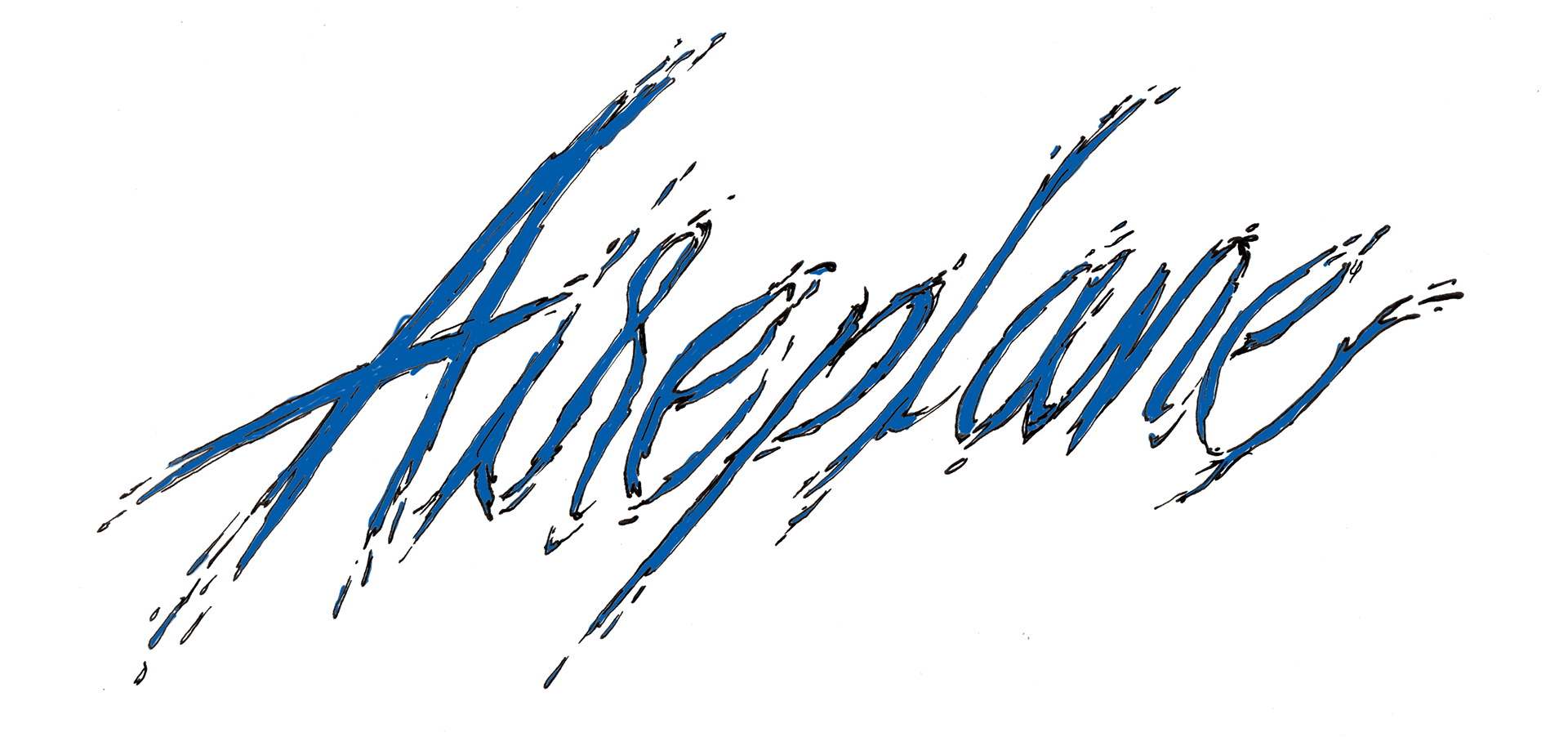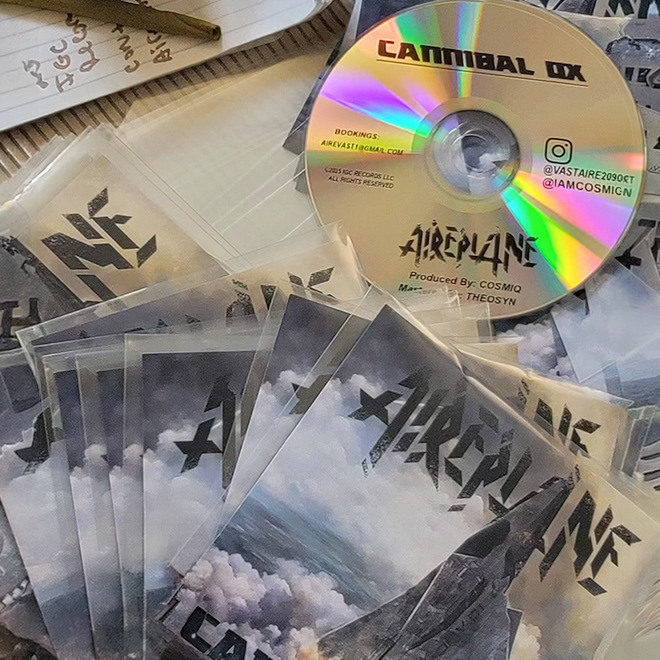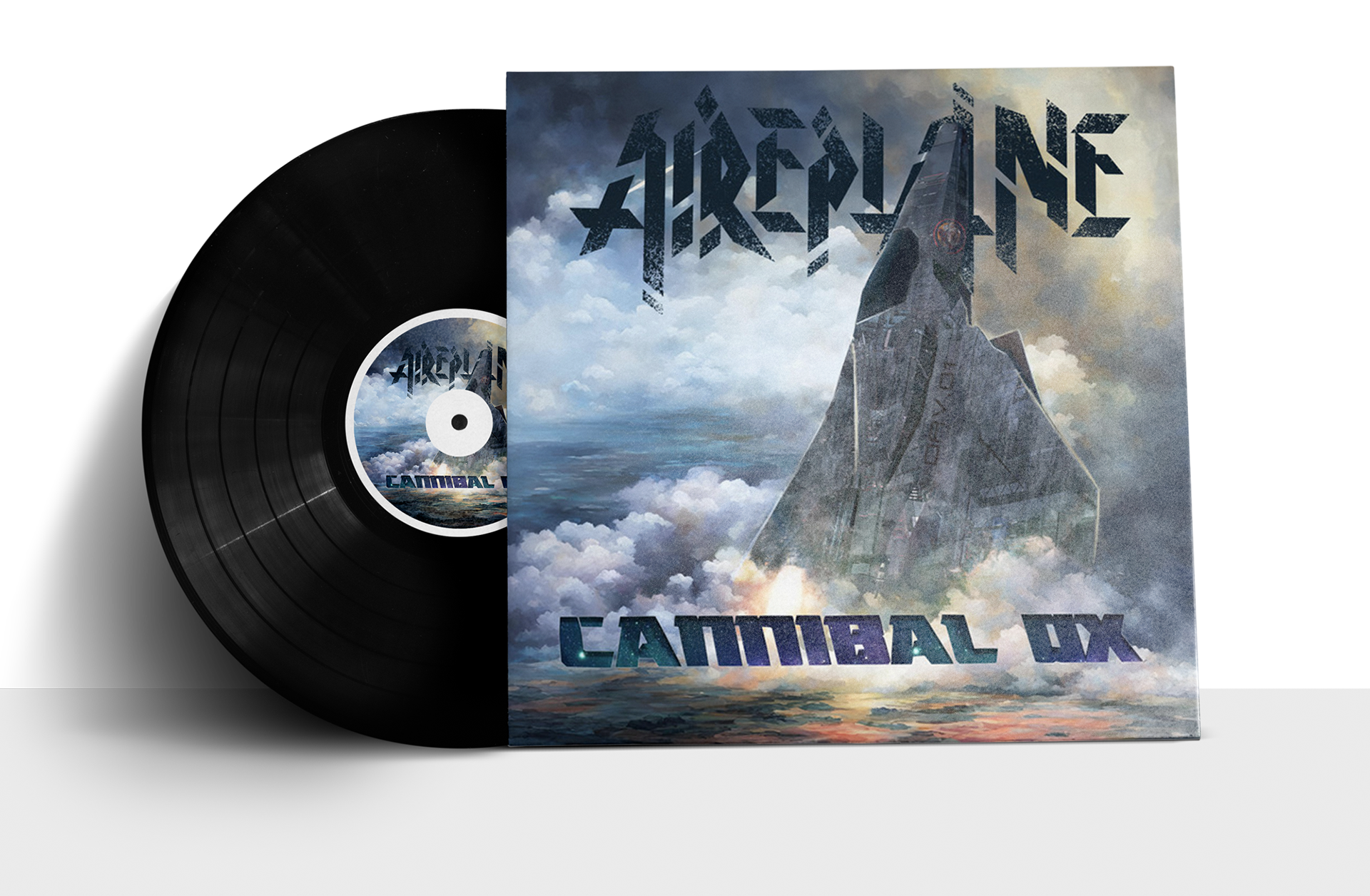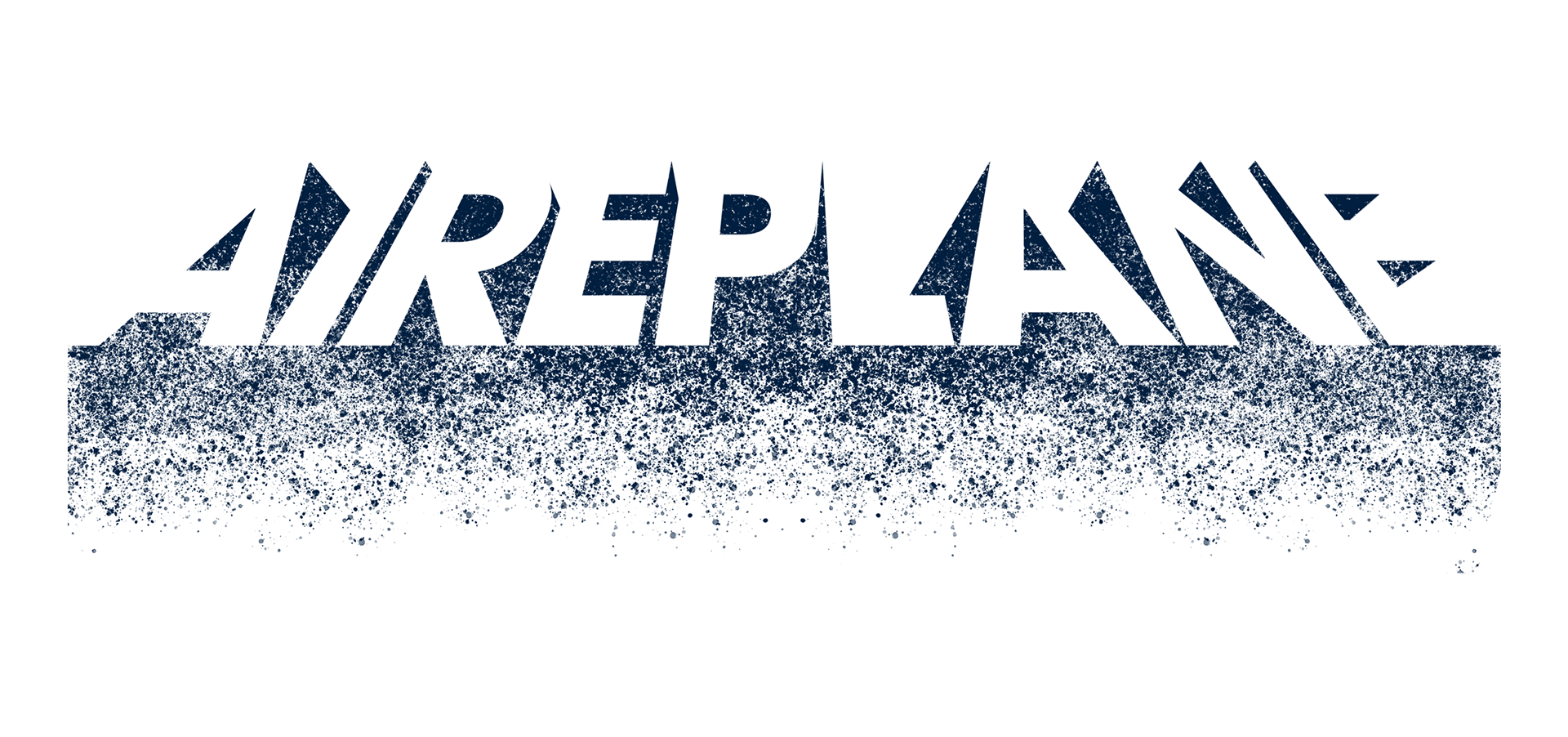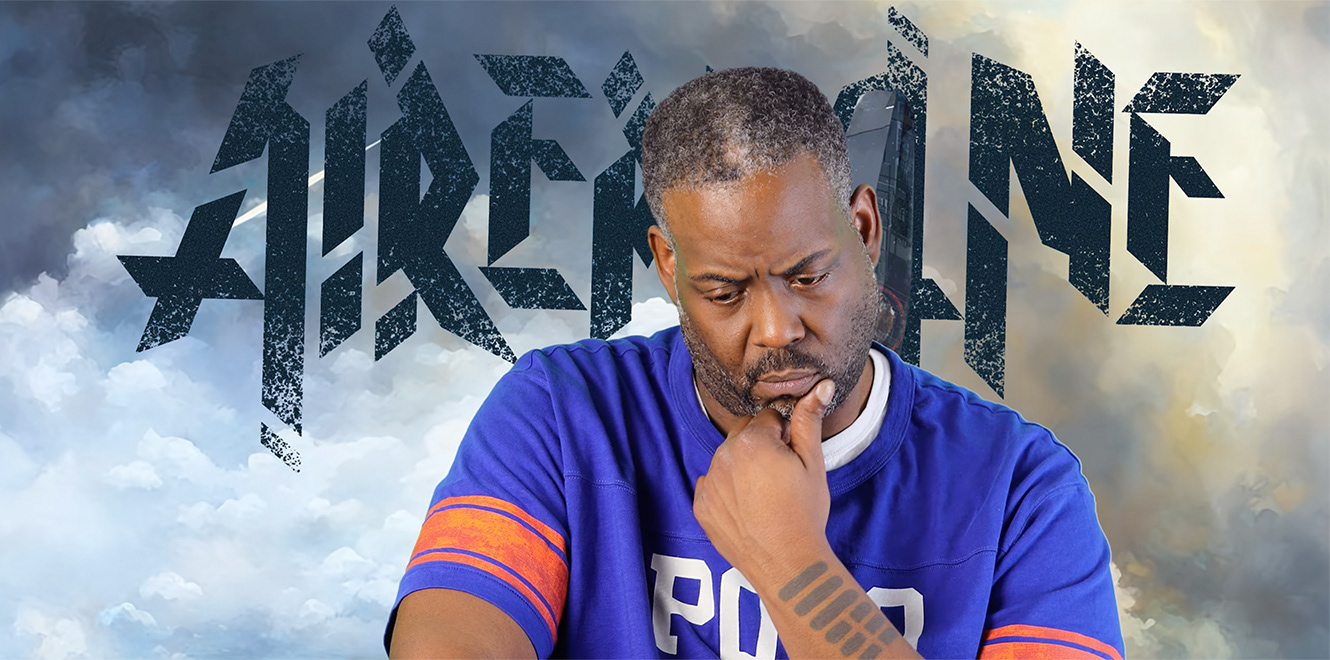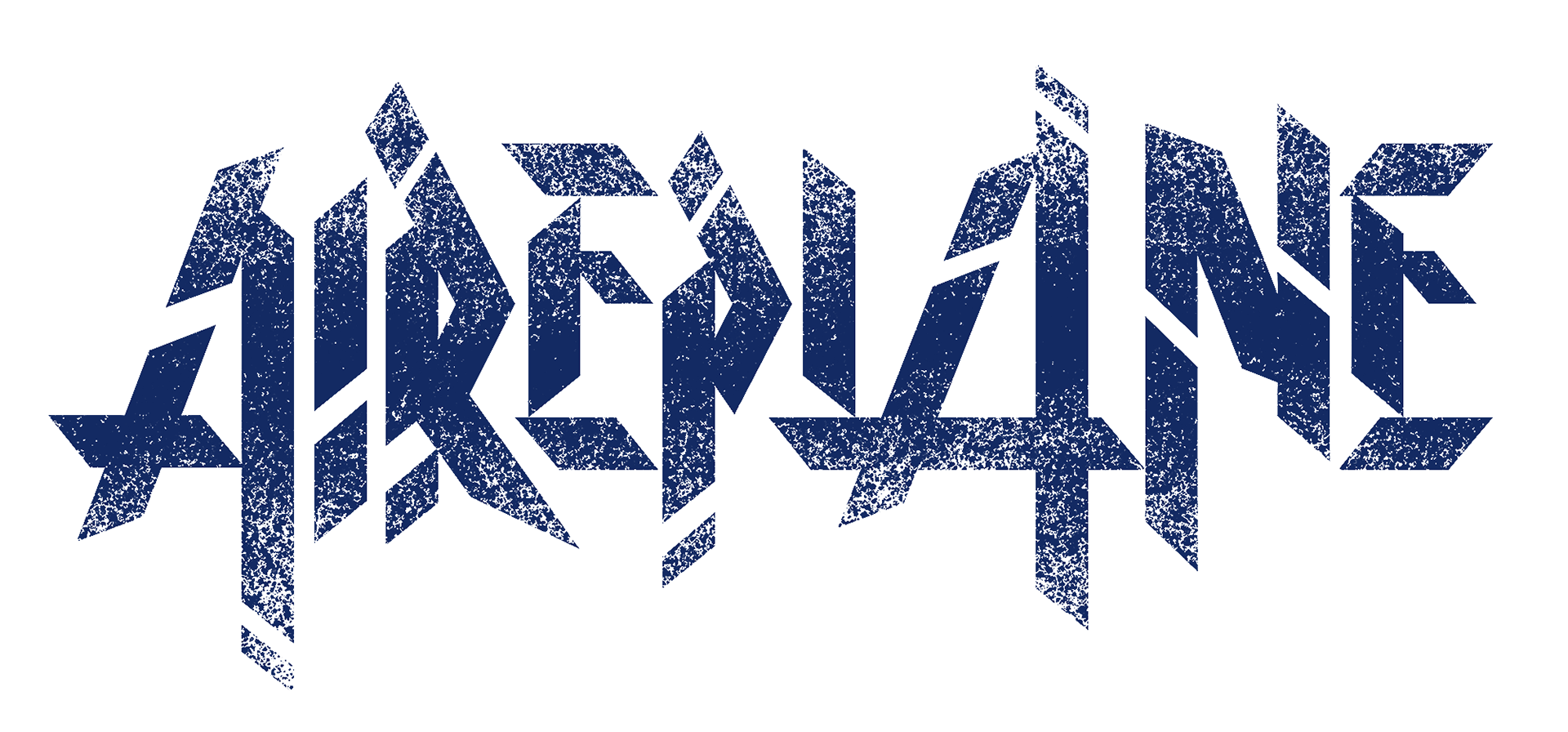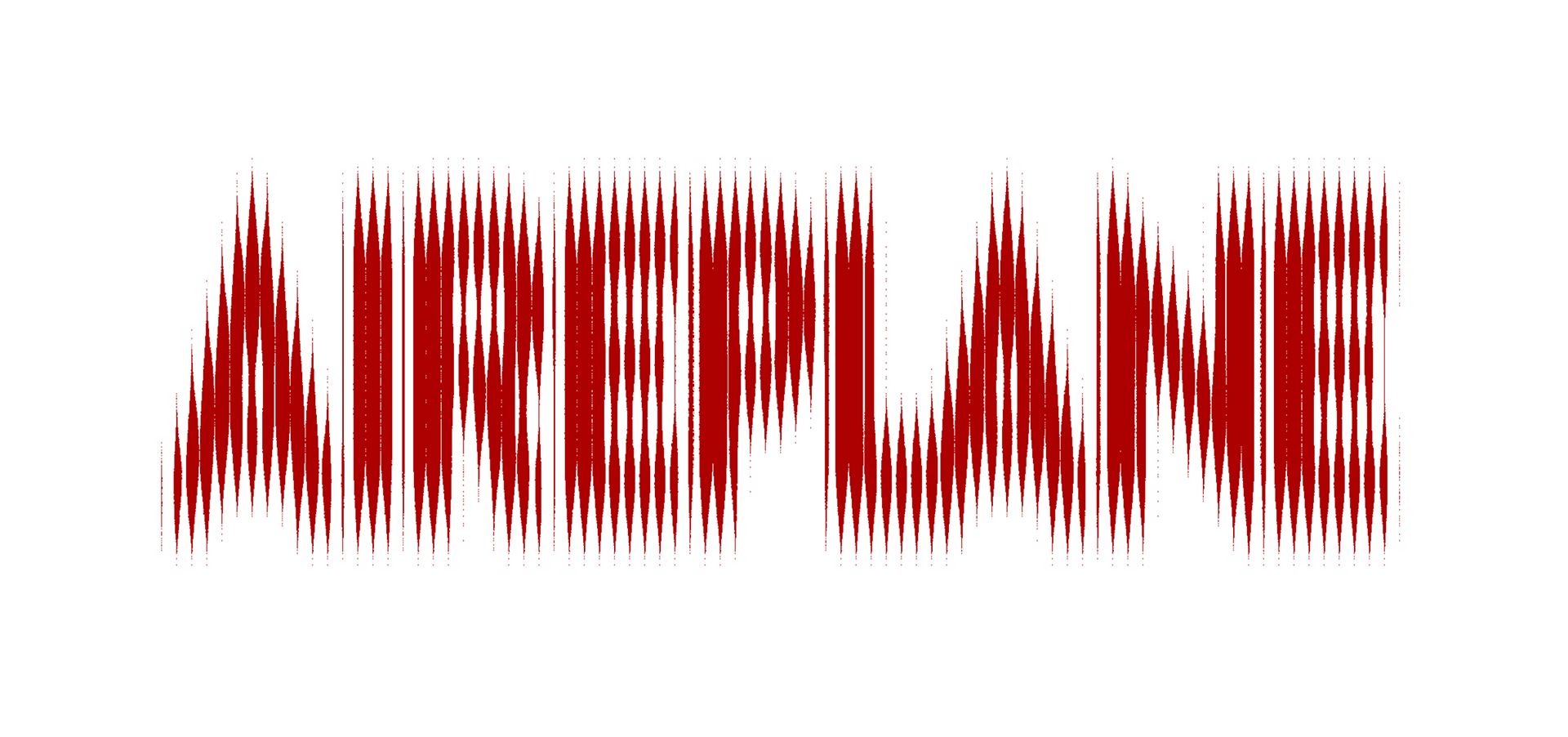
Lettering explorations
Commissioned lettering integrated into the album cover illustration for the latest Cannibal Ox project with Cosmiq, as the sound engineer. The letterforms were inspired by the experimental space travel-like sounds throughout the album.